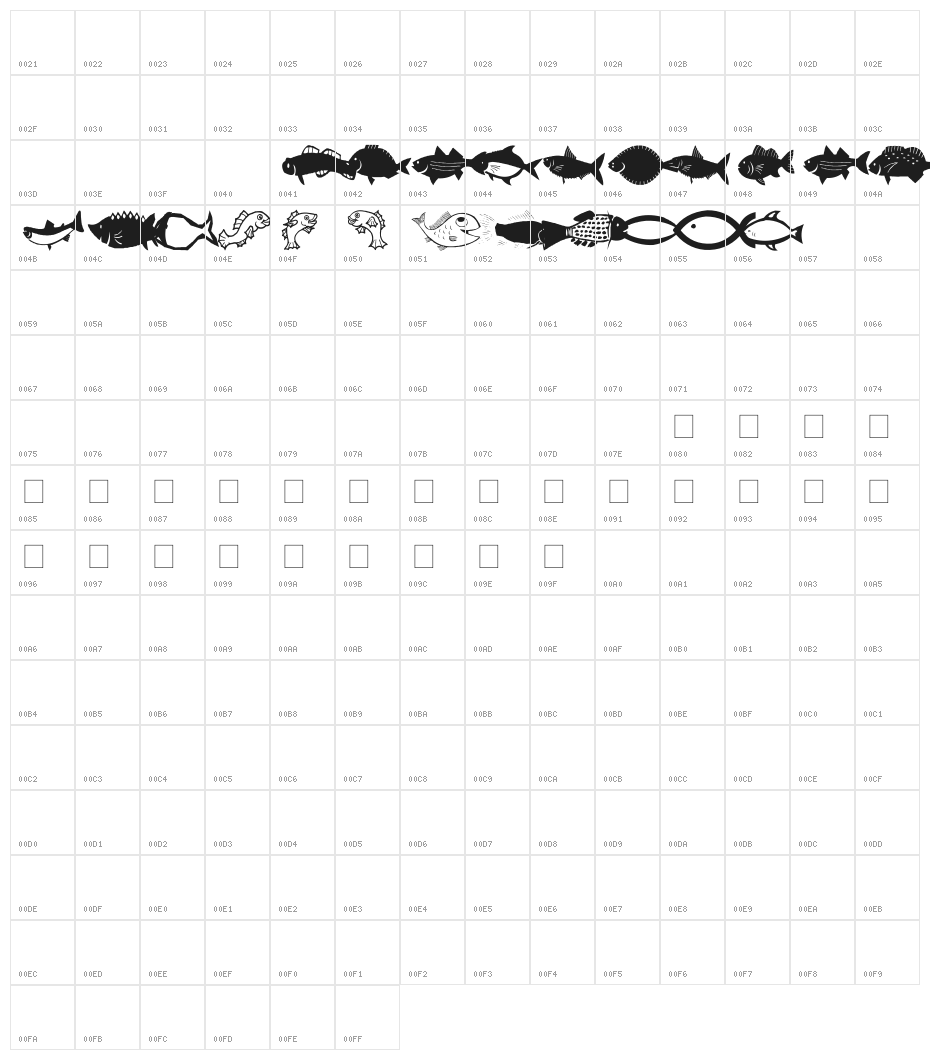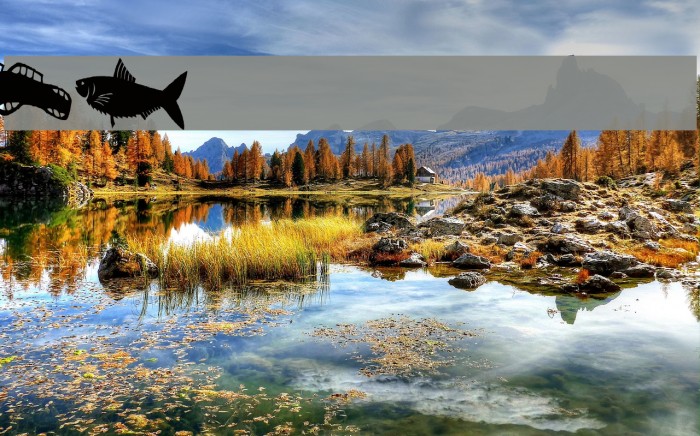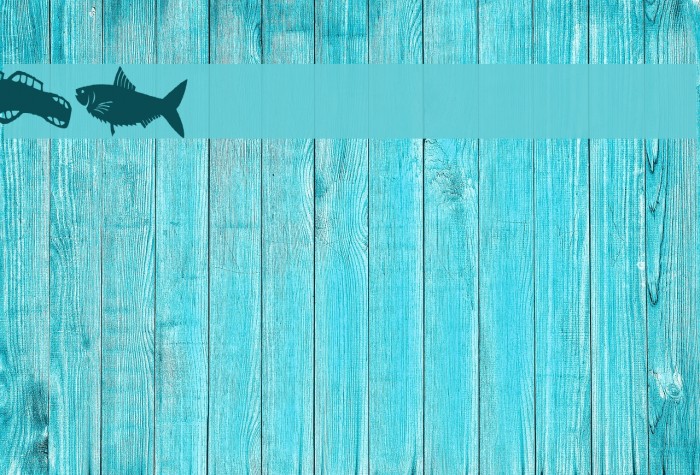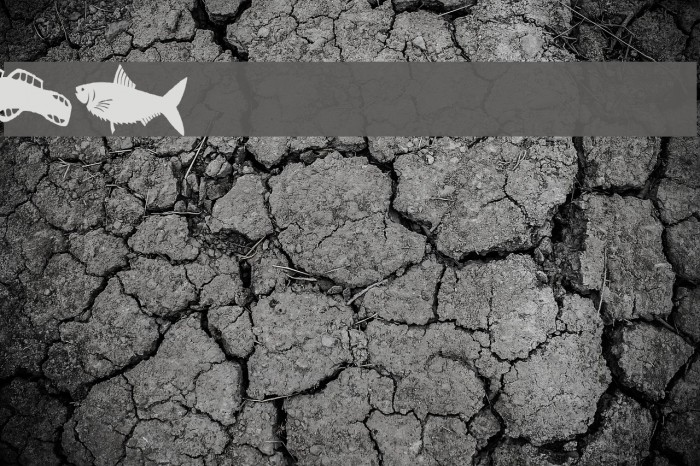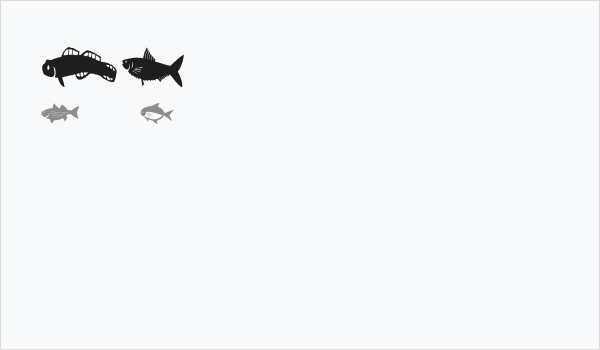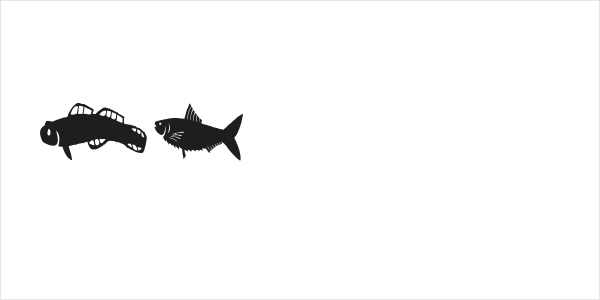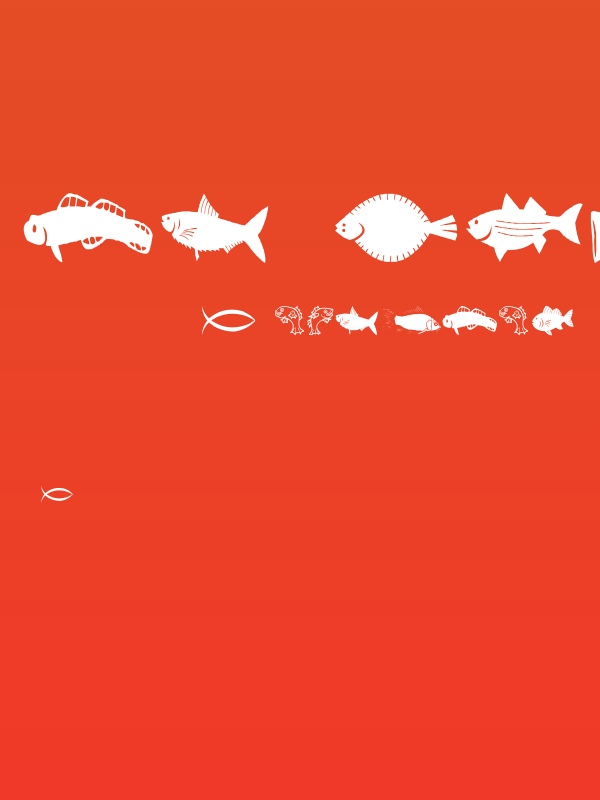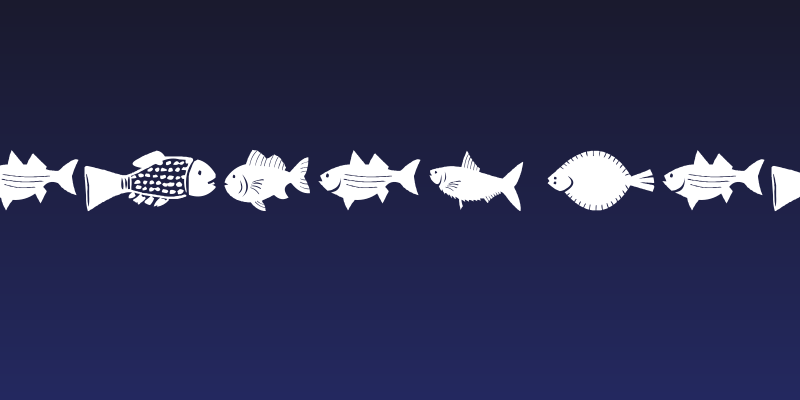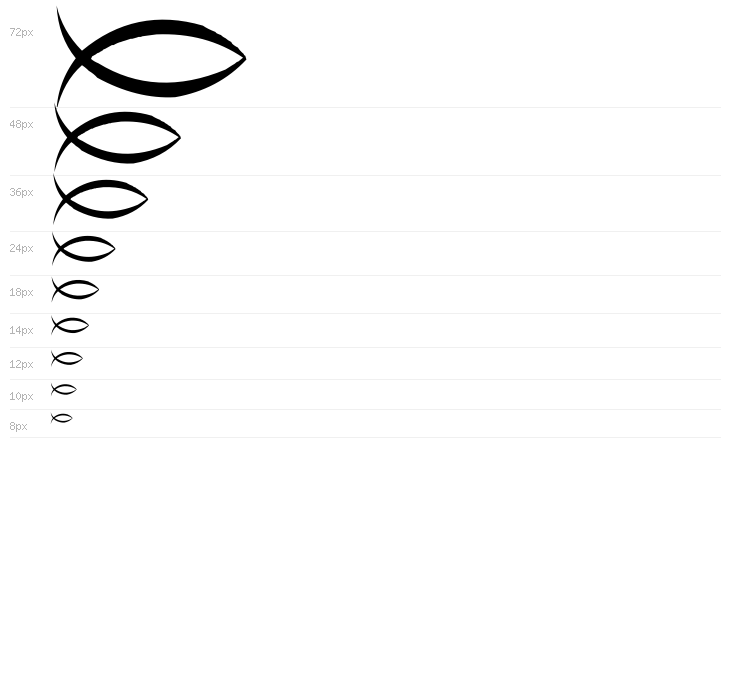
AEZ fishie fishie Font
AEZ fishie fishie Description
This decorative font features a series of fish illustrations, each uniquely designed to represent different species and styles. The characters are replaced by various fish shapes, creating a playful and aquatic theme. The designs range from simple outlines to more detailed and textured fish, offering a diverse visual experience. This font is ideal for projects that require a whimsical or nautical touch, adding a sense of fun and creativity to any design.
| Use Case | Logos, Posters, Creative Projects |
| Proposed Projects | Ideal for children's books, aquatic-themed event posters, educational materials about marine life, or playful branding for seafood restaurants. |